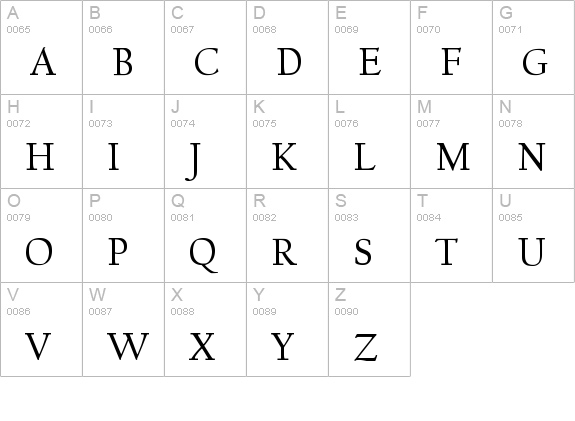
CalifornianText-Roman Font Details
CalifornianText-Roman is a versatile and elegant font that exudes a classic charm and sophistication. With its clean lines and balanced proportions, this typeface is perfect for a wide range of design projects, from invitations and branding to editorial layouts and signage. The timeless appeal of CalifornianText-Roman makes it a popular choice for designers seeking a font that is both refined and approachable. Best of all, CalifornianText-Roman is available for free download at FontsMarket.com, making it easily accessible to designers looking to add this beautiful font to their collection without any cost. So whether you're working on a personal project or a client's assignment, CalifornianText-Roman is a versatile and high-quality font that is sure to elevate your design work to the next level.